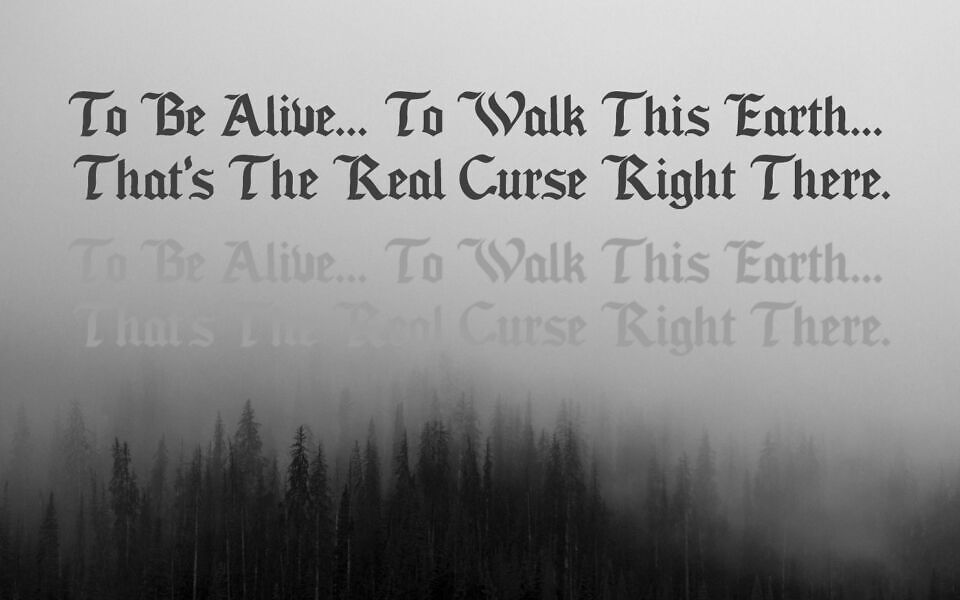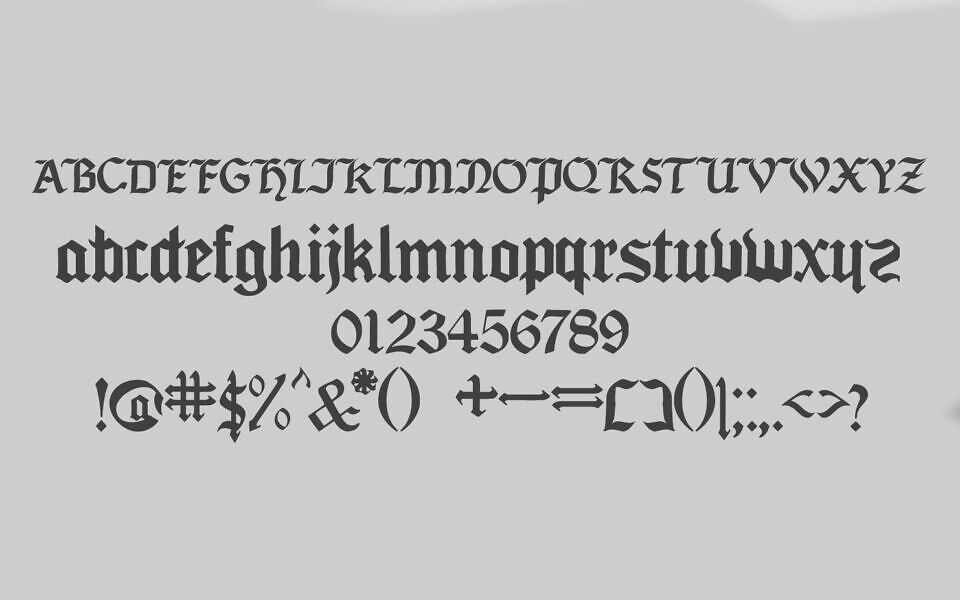
The Seagram TFB font by zanatlija is a bold, gothic-style typeface with a vintage, medieval flair. Featuring sharp, intricate letterforms and a striking blackletter design, it adds a dramatic and elegant touch to any text.